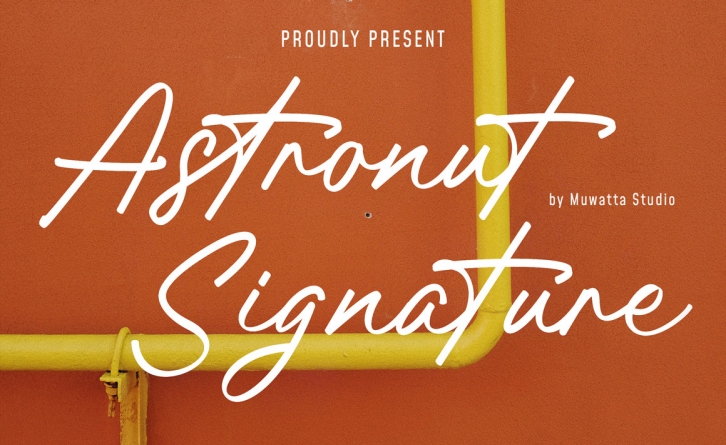
Astronut Signature is an elegant, modern, and organic script font. Fall in love with its ravishing style, and use it to create awesome logos, branding designs, signatures, web fonts, stationery art, eye-catching social media posts, and more! This font is PUA encoded which means you can access all of the glyphs and swashes with ease!